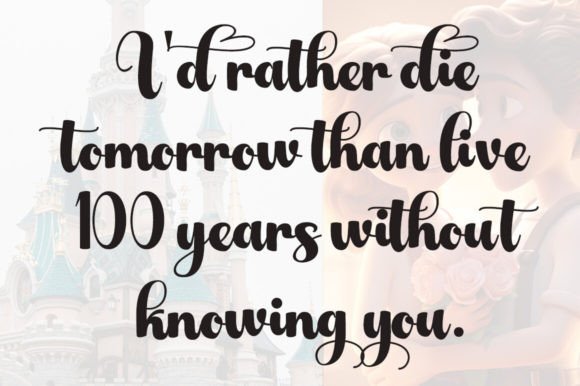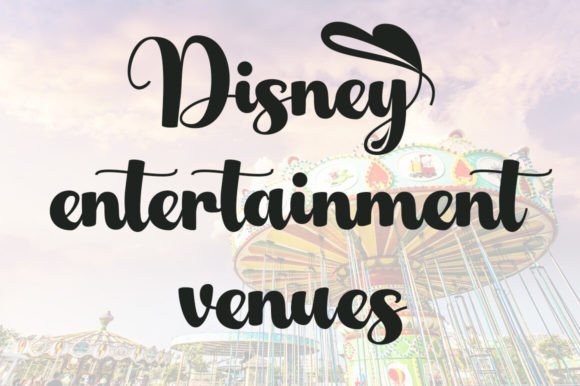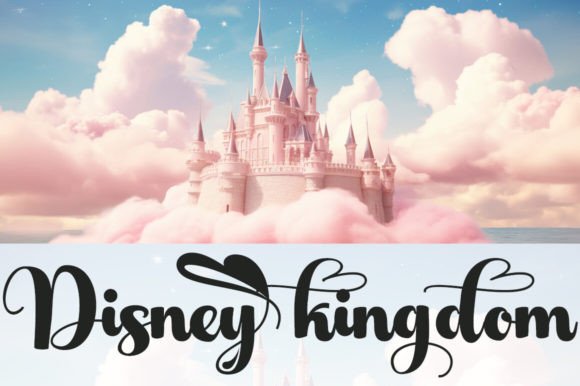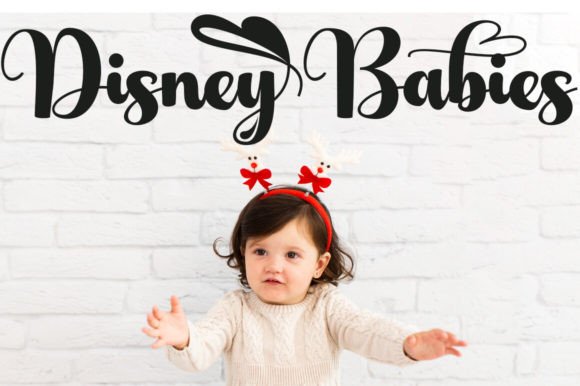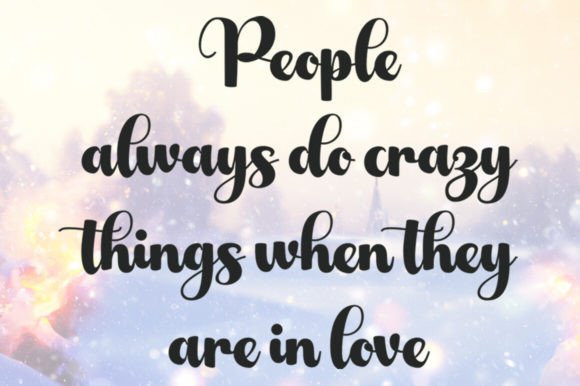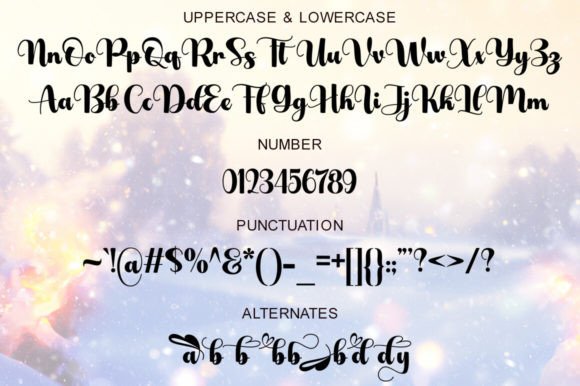
The Magic of Disney Font: Elevating Your Designs with Elegance and Expression
I’ll never forget the time I was working on a branding project for a luxury wedding planner, and I was tasked with creating a bespoke logo that exuded sophistication and whimsy. As I scrolled through font libraries, I stumbled upon the Disney font, and it was love at first sight! ✨ The flowing, handwritten script seemed to dance across my screen, radiating an artful elegance that perfectly captured the essence of the client’s vision.
As I explored the font further, I realized that Disney is more than just a pretty face – it’s a versatile and expressive typeface that can elevate a wide range of creative projects, from wedding invitations to brand identities. In this article, I’ll share my honest review of the Disney font, provide a practical guide on how to use it, and explore similar fonts that you might love.
An Honest Review of Disney Font
- ✨ Elegant and expressive: Disney font boasts a beautiful, flowing script that adds a touch of sophistication to any project.
- ✅ Versatile: With its range of OpenType features and glyphs, Disney font can be used for a variety of applications, from titles and headings to body text.
- 💫 Timeless: The font’s classic, calligraphic feel ensures that it will remain stylish and relevant for years to come.
While Disney font is an exceptional typeface, it’s not without its quirks. Here are a few things to keep in mind:
- ⚠️ Legibility at small sizes: As with many script fonts, Disney can become tricky to read at very small sizes. Be sure to test it in your design to ensure it remains legible.
- 🤔 Limited use in body text: While Disney is stunning for titles and headings, it may not be the best choice for lengthy body text. Consider pairing it with a complementary font for optimal readability.
The Designer Inspiration Behind Disney Font
While the true origins of Disney font are unclear, it’s likely that the designers drew inspiration from traditional calligraphy and hand-lettering techniques. The font’s elegant, flowing script and attention to detail evoke the work of master calligraphers and lettering artists.
| Font Name | Disney Font |
| Author | Ws Studio |
Q: What type of projects is Disney font best suited for?
A: Disney font is ideal for projects that require a touch of elegance and sophistication, such as luxury branding, wedding invitations, and high-end advertising.
Q: Can I use Disney font for body text?
A: While Disney font is stunning for titles and headings, it may not be the best choice for lengthy body text. Consider pairing it with a complementary font for optimal readability.
Q: Is Disney font available in different weights or styles?
A: Yes, Disney font comes in a range of weights and styles, allowing you to experiment with different looks and feels in your designs.